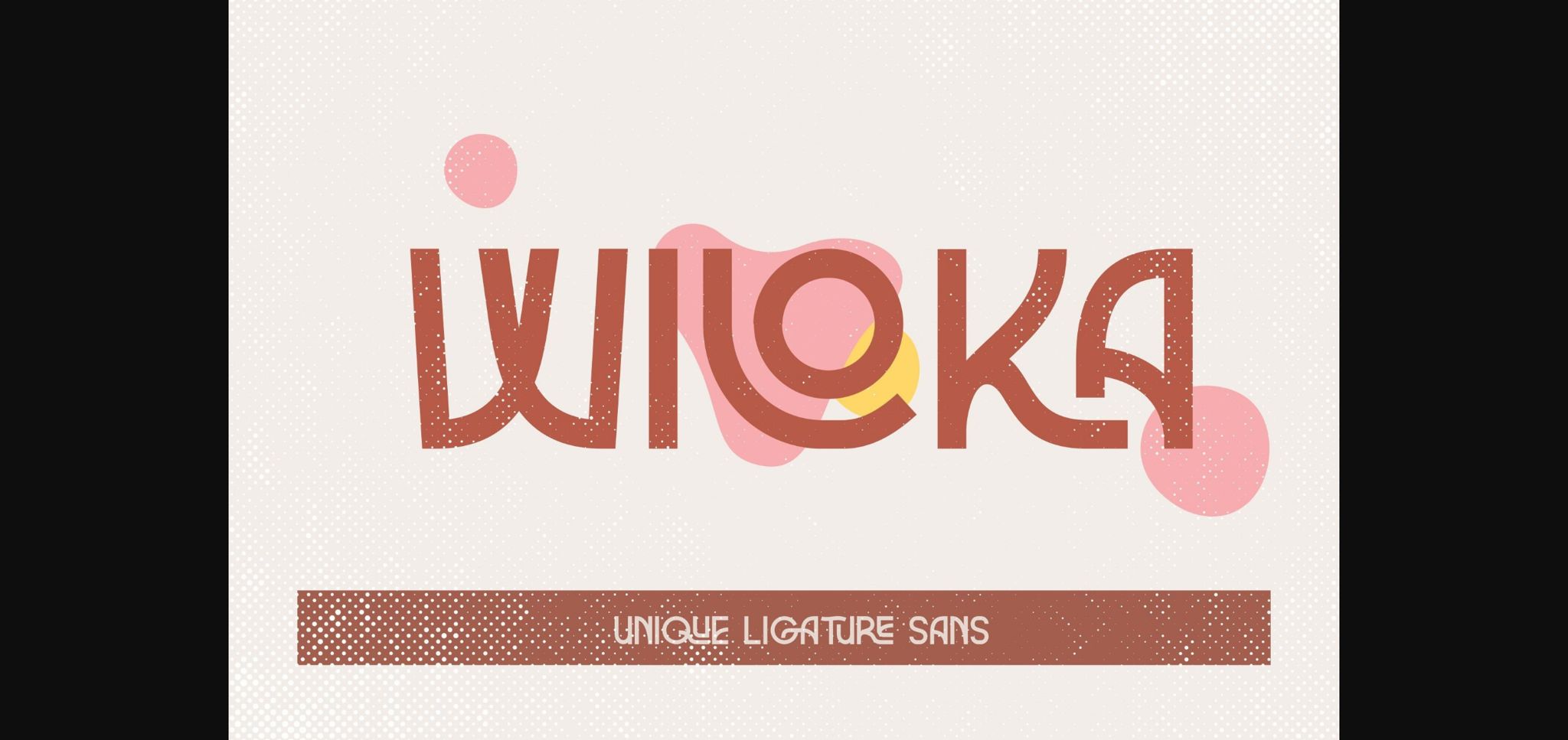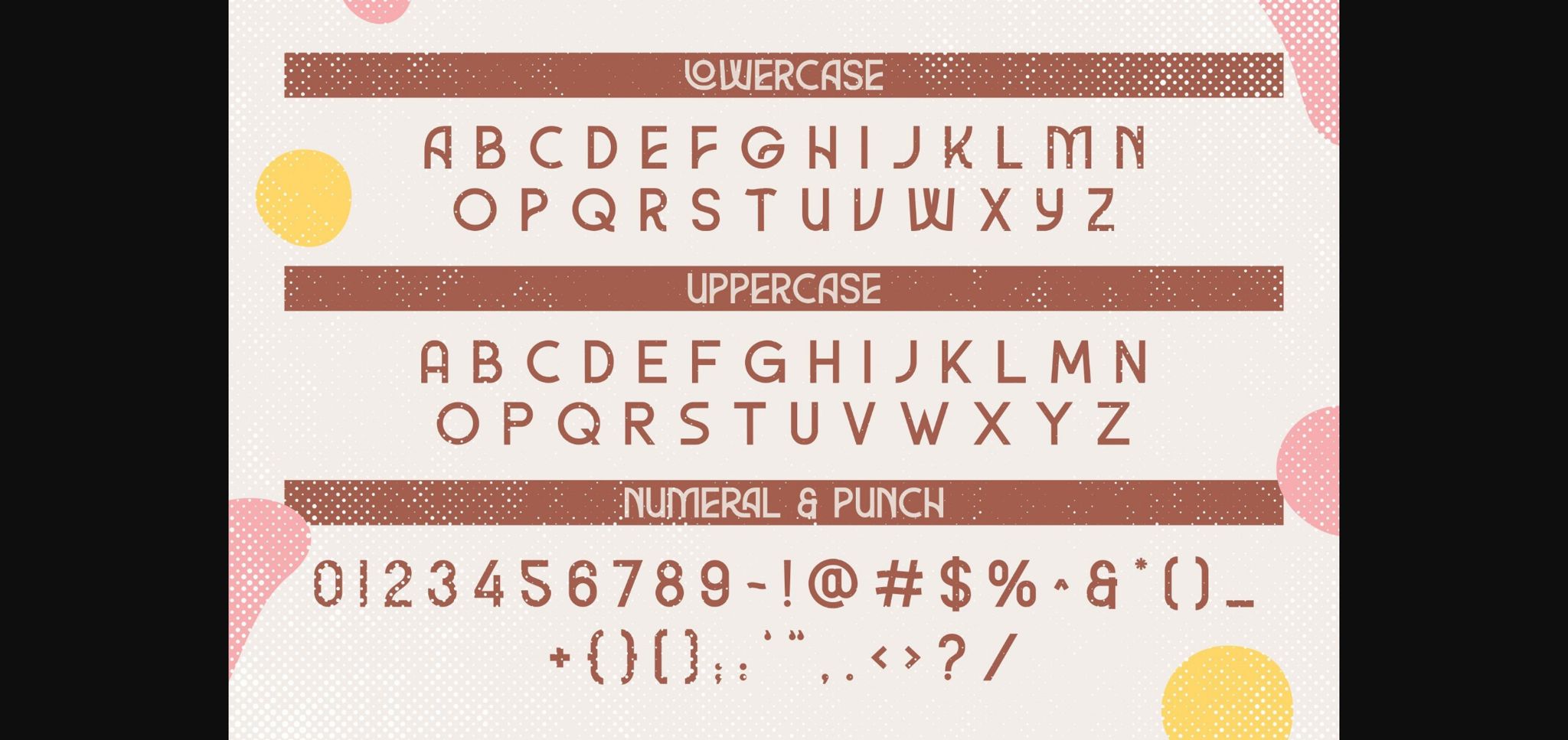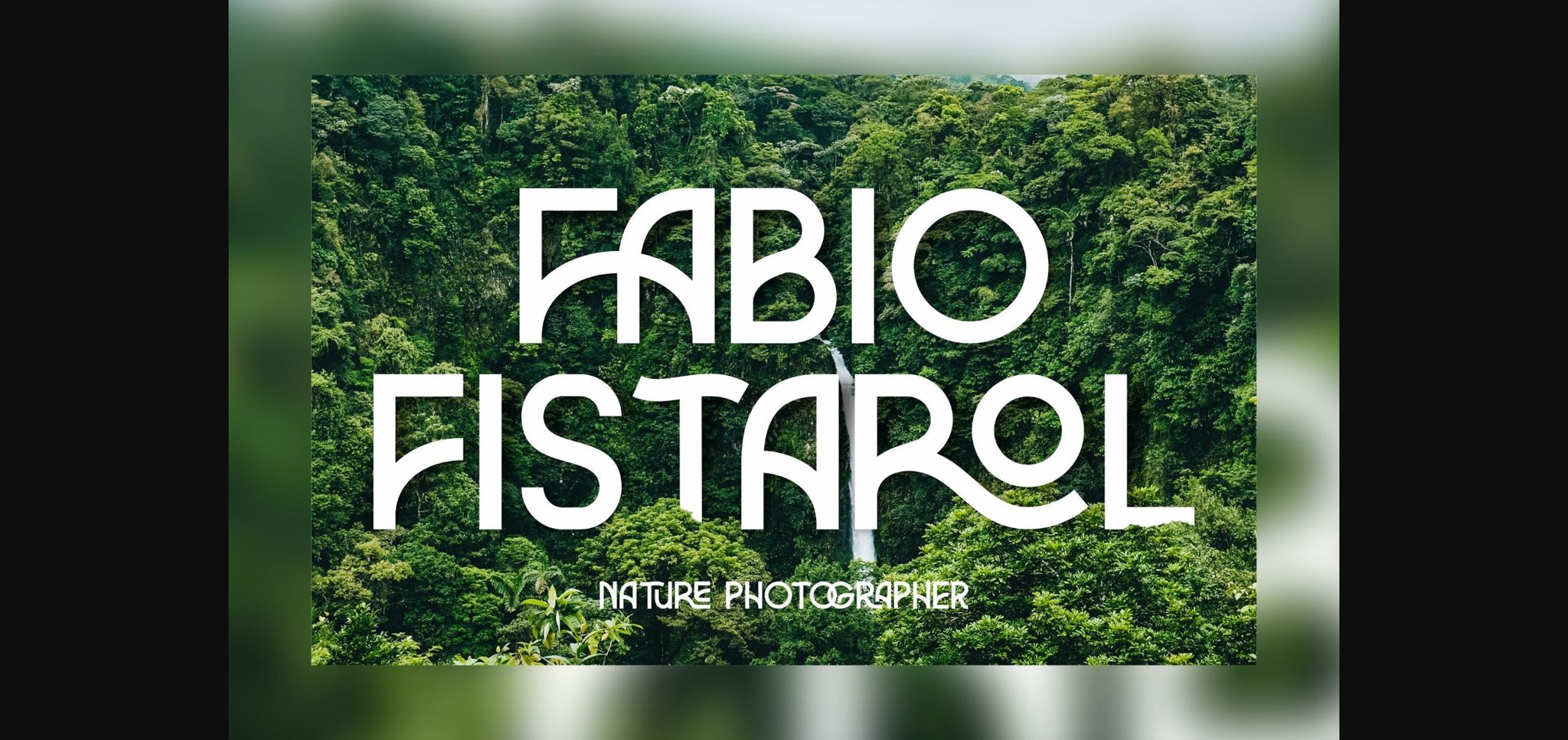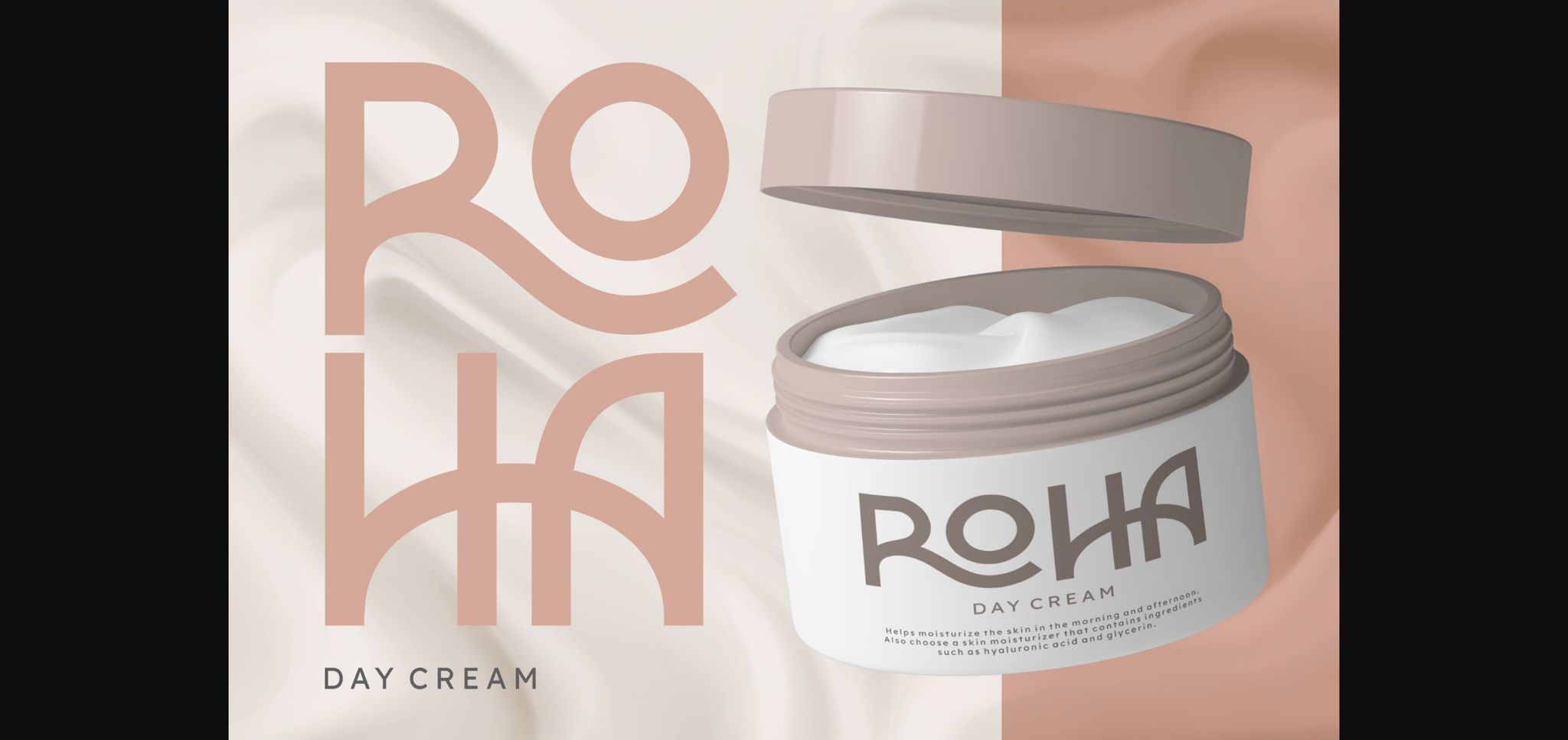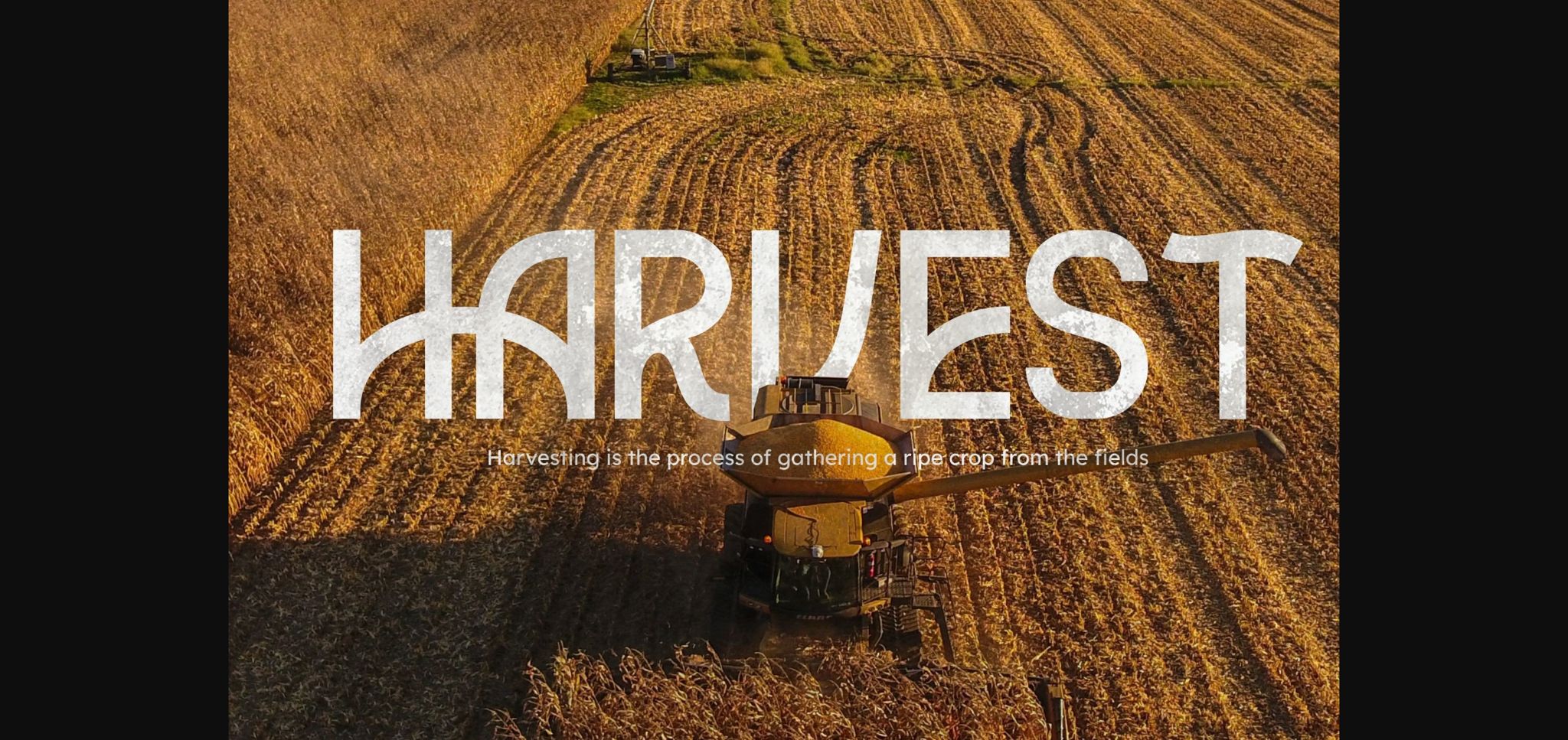
About Wiloka Font
Wiloka is a quirky and fun sans-serif font, perfect for branding, headlines, posters, books, magazines, and packaging projects! Mainly characterized by a modern look with a straight shape, it goes well with a vintage style.
This font has ligatures that add a unique style to the characters. Additionally, it is a unicase typeface, so you can also play with uppercase and lowercase initials.